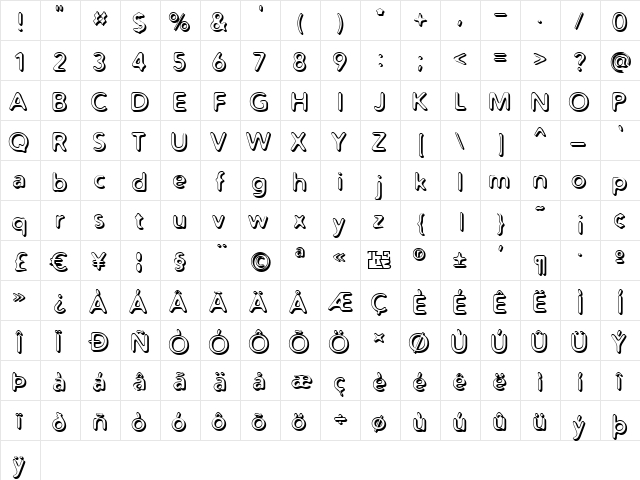
Distro Bev Regular
| Designer | Peter Ramsey & Apostrophe |
Design Context for Distro Bev Typeface
Distro Bev is a composed and adaptable typeface that performs quietly and consistently across a wide range of design contexts.